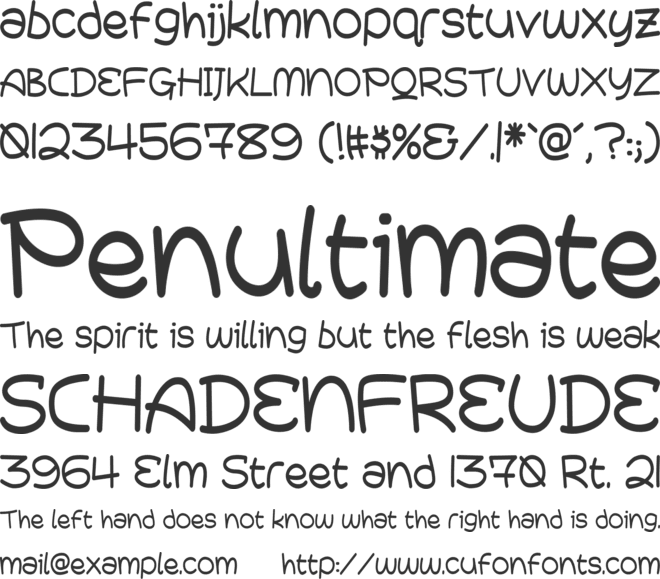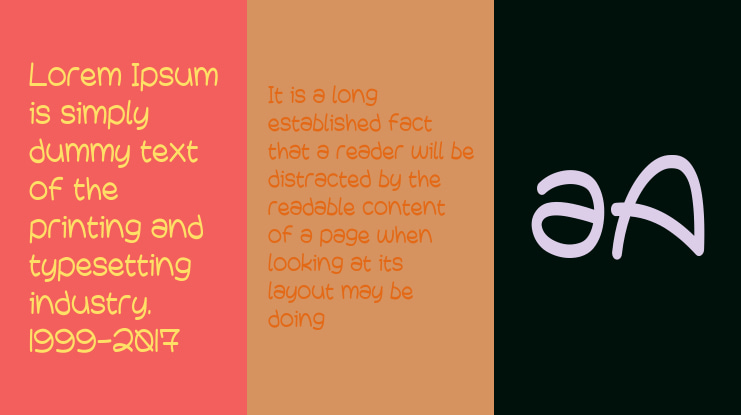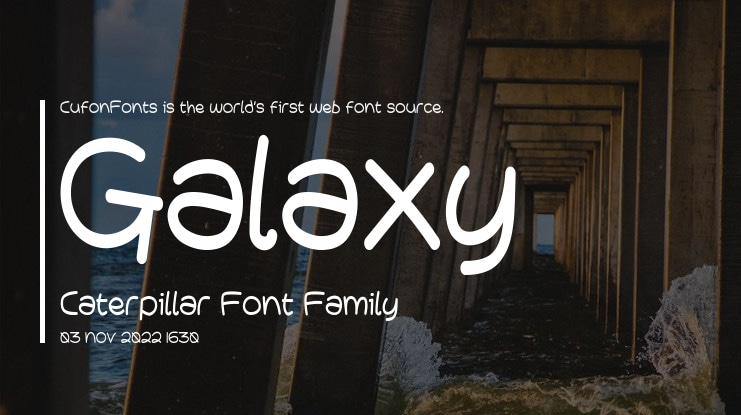
Galaxy Caterpillar Font
Galaxy Caterpillar is a marker-like comic writing font I only made back in 2020. I haven't uploaded this font for a long time, so there it is once again! :D